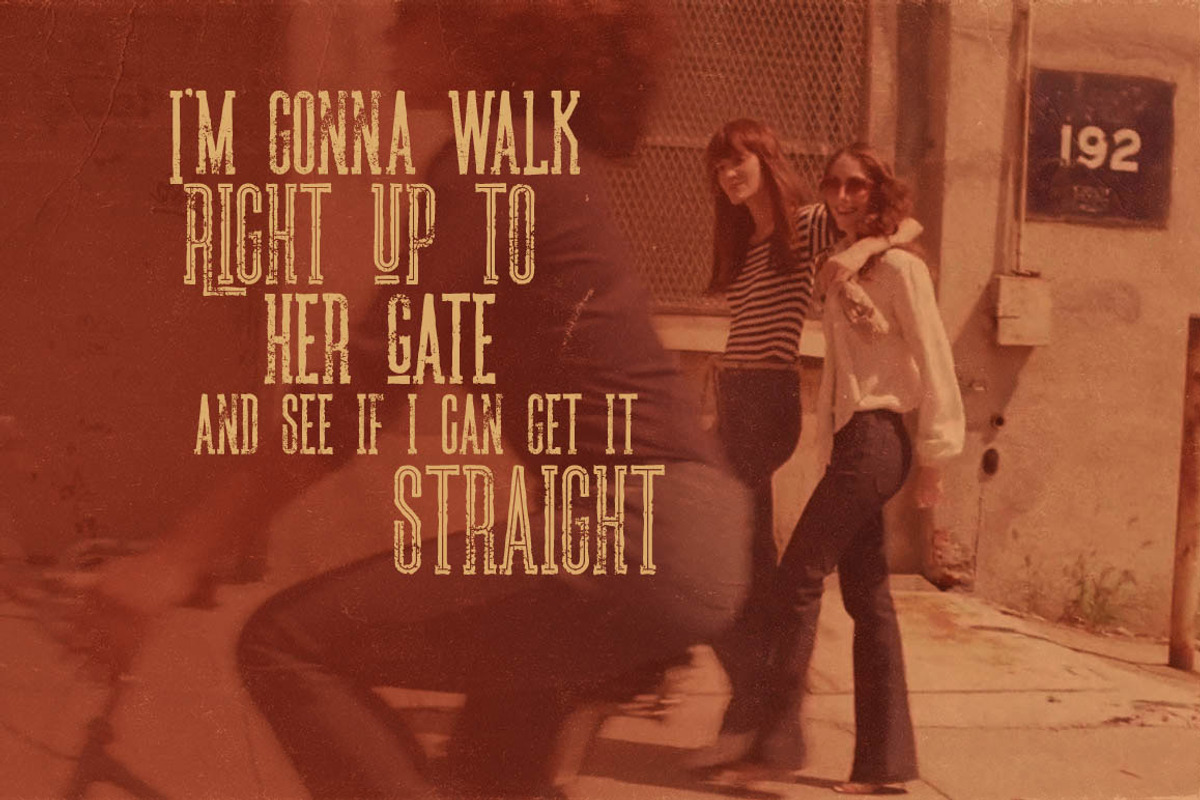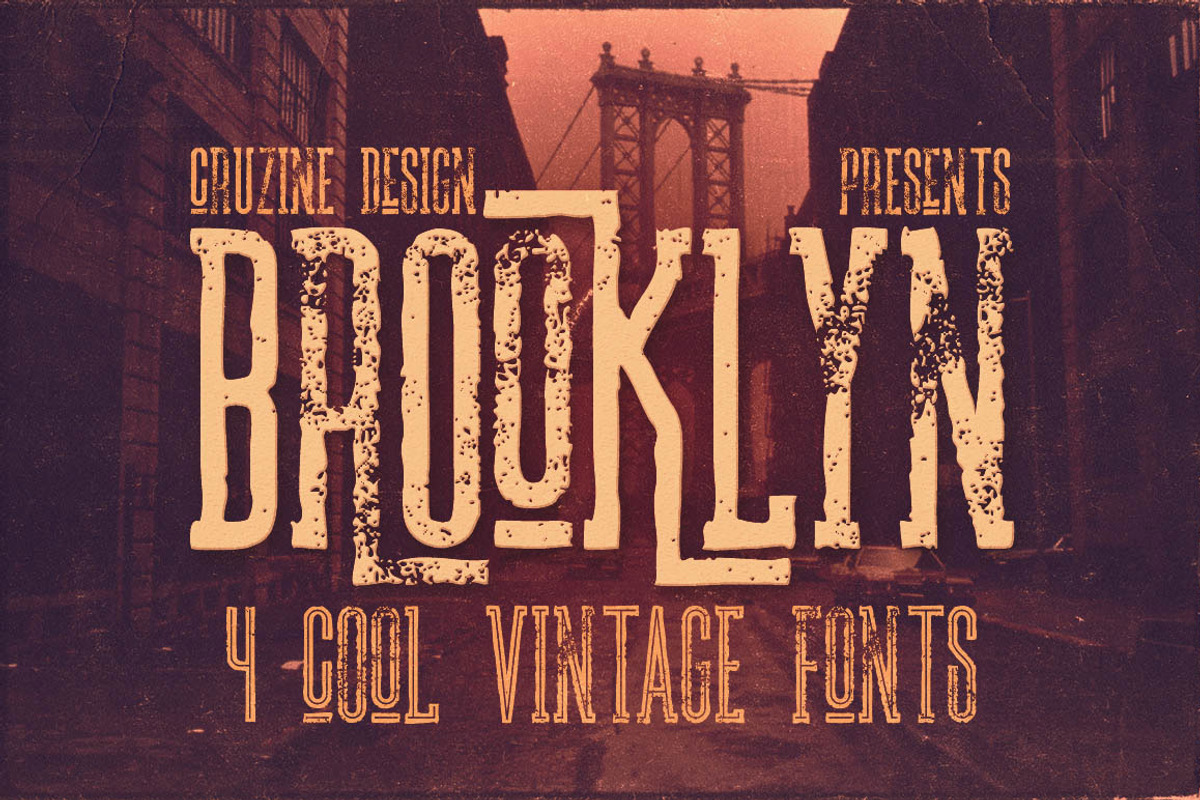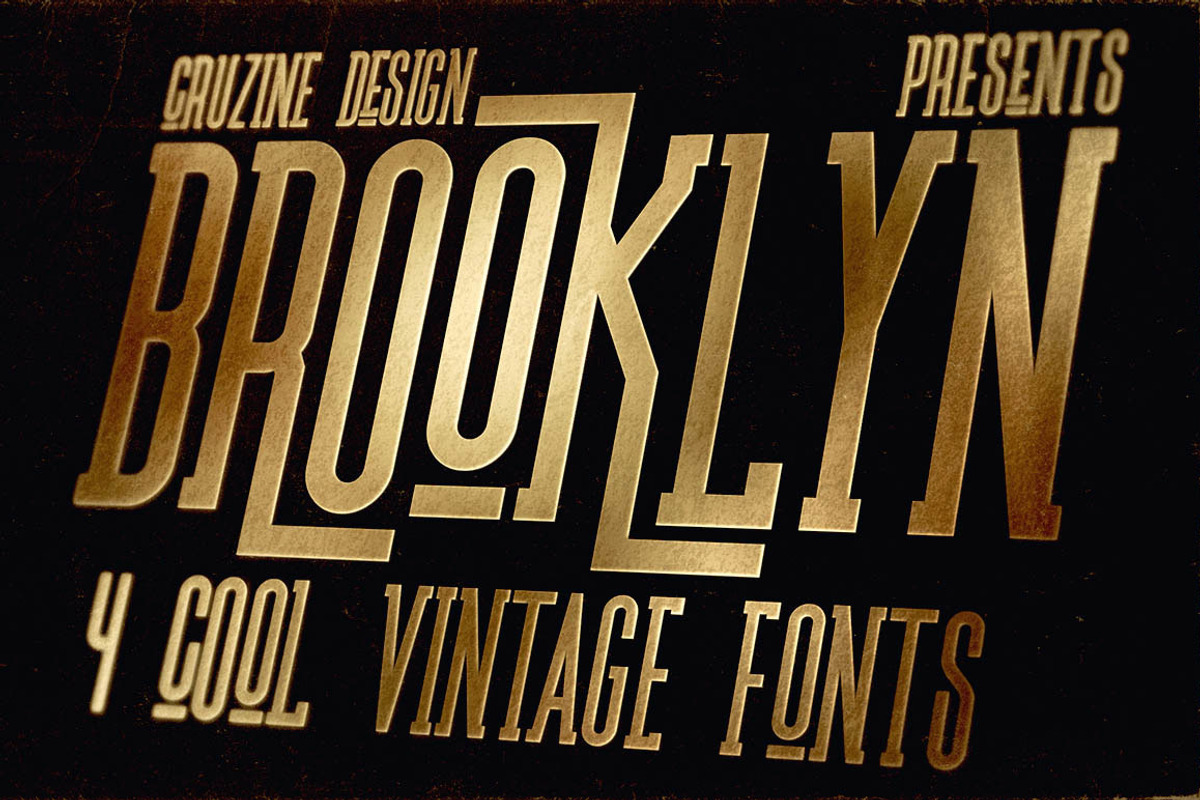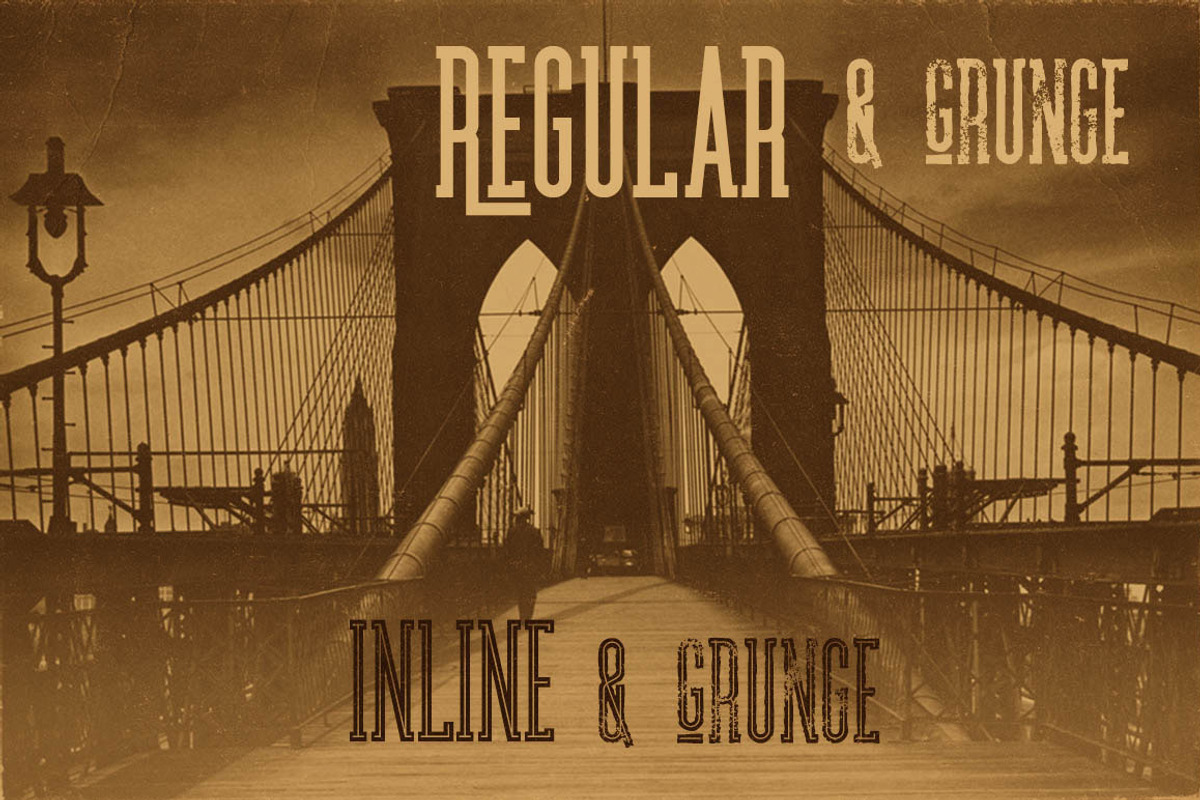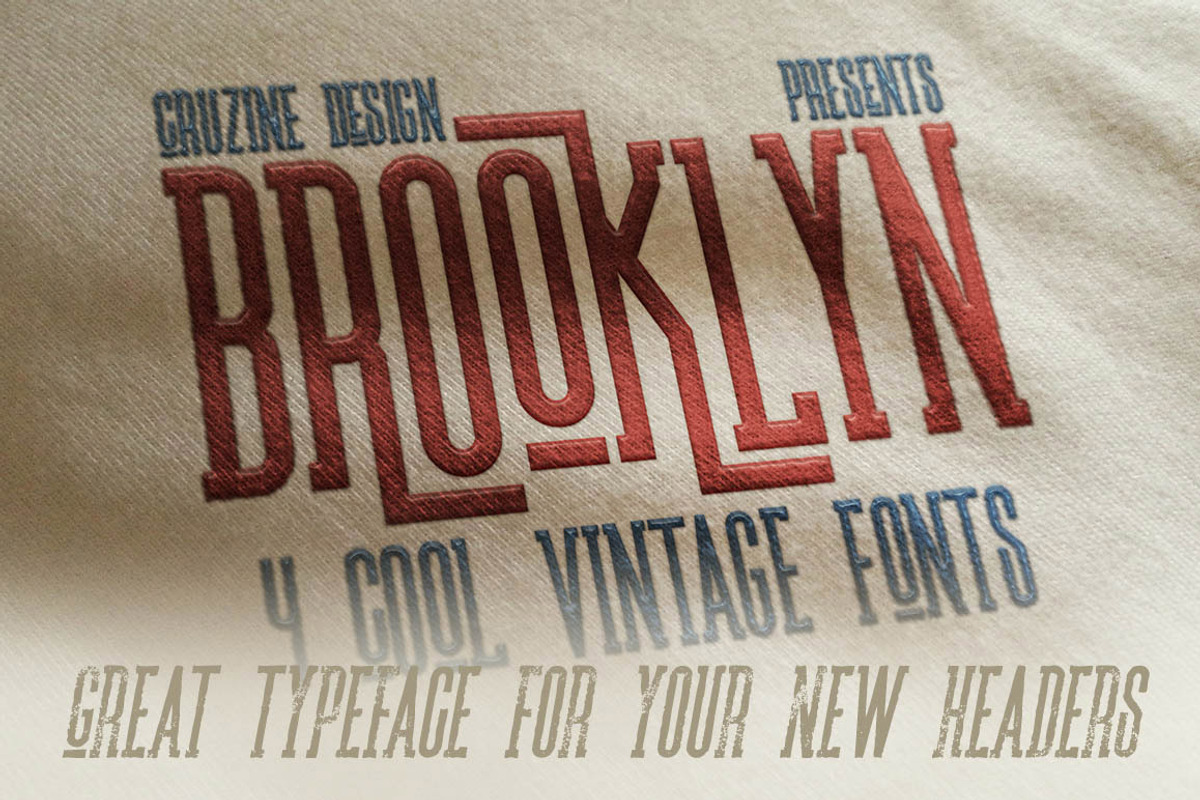
Brooklyn Typeface
Brooklyn Typeface by Cruzine is a font selected for branding, posters, packaging, typography.
Why Brooklyn Typeface is worth a look
Brooklyn Typeface by Cruzine fits naturally into Branding, posters, packaging, typography.